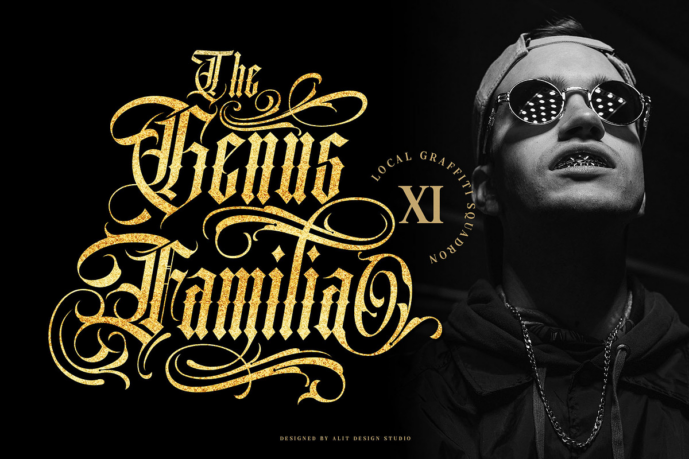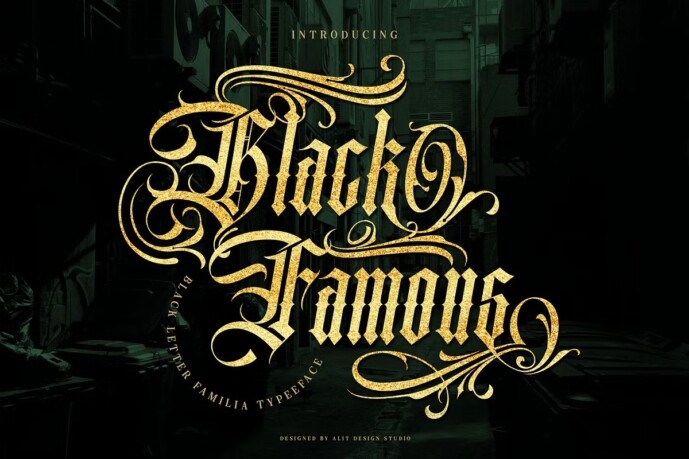
Black Famous Font
Designer: alit design
Black Famous Font is a bold and captivating blackletter font inspired by the rich and vibrant culture of Mexican Chicano tattoo art. This typeface exudes the essence of the streets, blending traditional blackletter aesthetics with intricate swashes and flourishes characteristic of Mexican gangster tattoos.